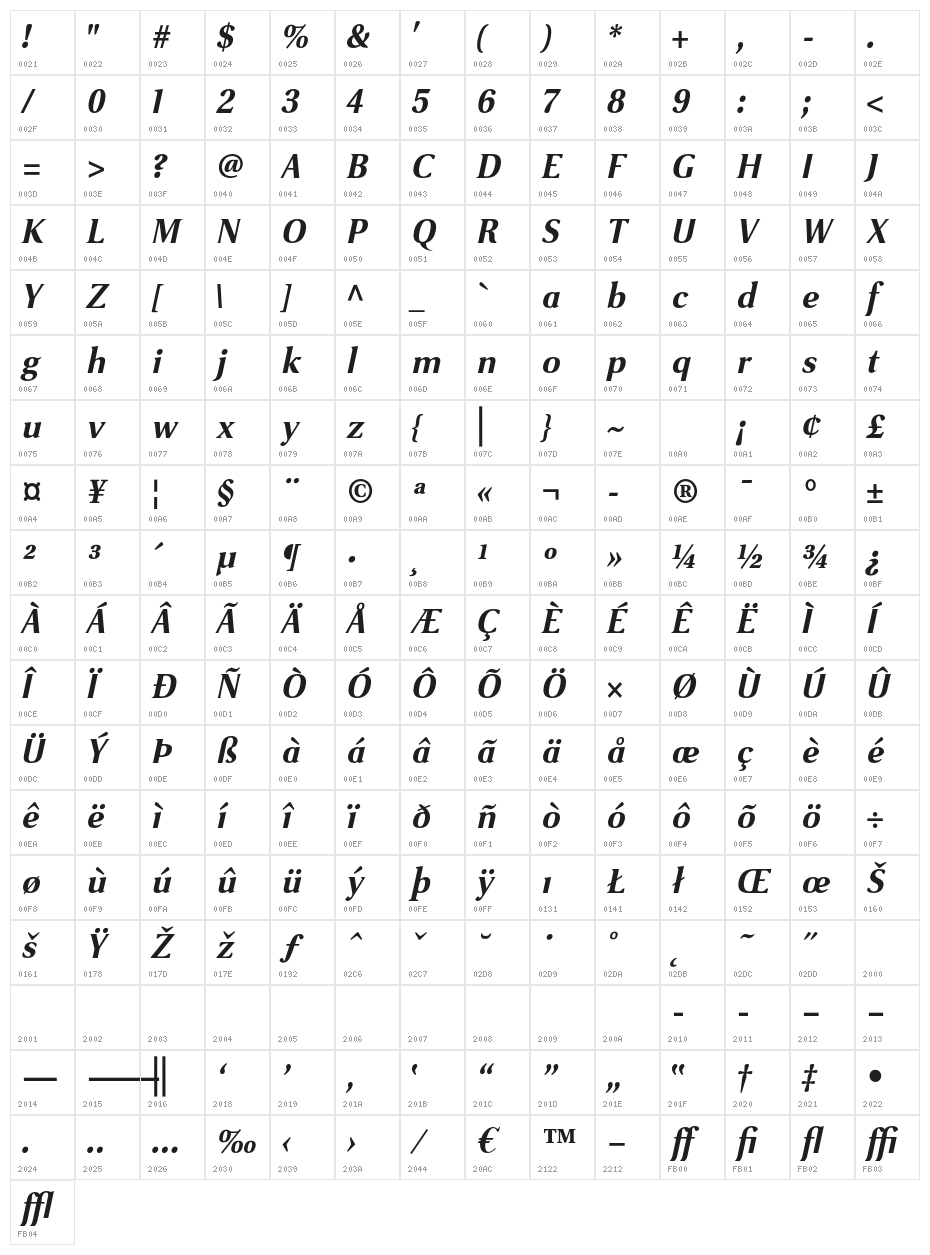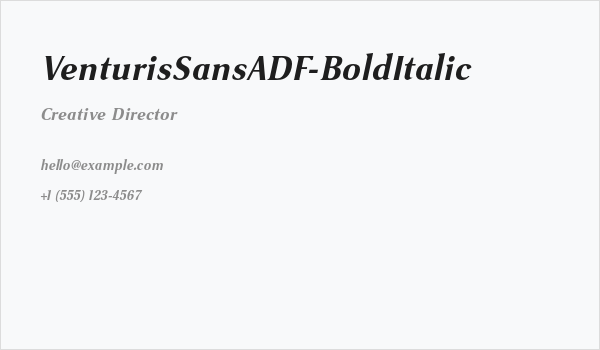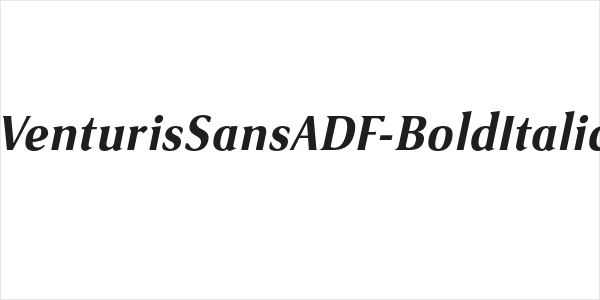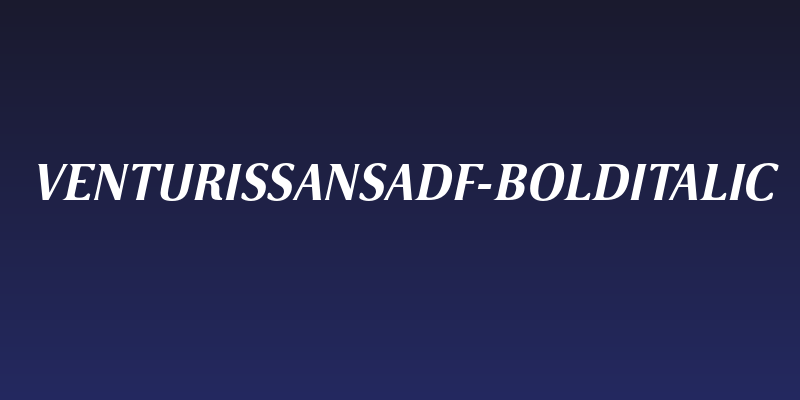
VenturisSansADF-BoldItalic Font
VenturisSansADF-BoldItalic Description
This font exhibits a bold and italicized style, characterized by its dynamic and slanted letterforms. The strokes are thick and consistent, providing a strong visual impact. The uppercase letters are tall and commanding, while the lowercase letters maintain a smooth and flowing appearance. The numerals are clear and easily distinguishable, complementing the overall design. Special characters are well-integrated, maintaining the font's cohesive look. This font is versatile, suitable for various applications that require emphasis and readability.
| Use Case | Headlines, Logos, Advertising |
| Proposed Projects | Ideal for headlines, branding, advertising, and any project requiring a bold statement. |